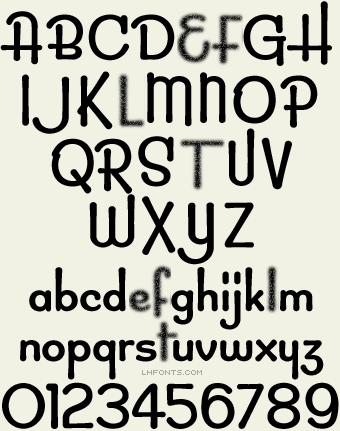
This friendly, retro style script evokes the spirit of the 50's hand-drawn advertising world. Set includes Casual and Script fonts designed to be used interchangeably with each other. Each font also includes bonus alternates and ligatures (accessible in applications with glyph palette). You may also like: Cosmic Cursive.